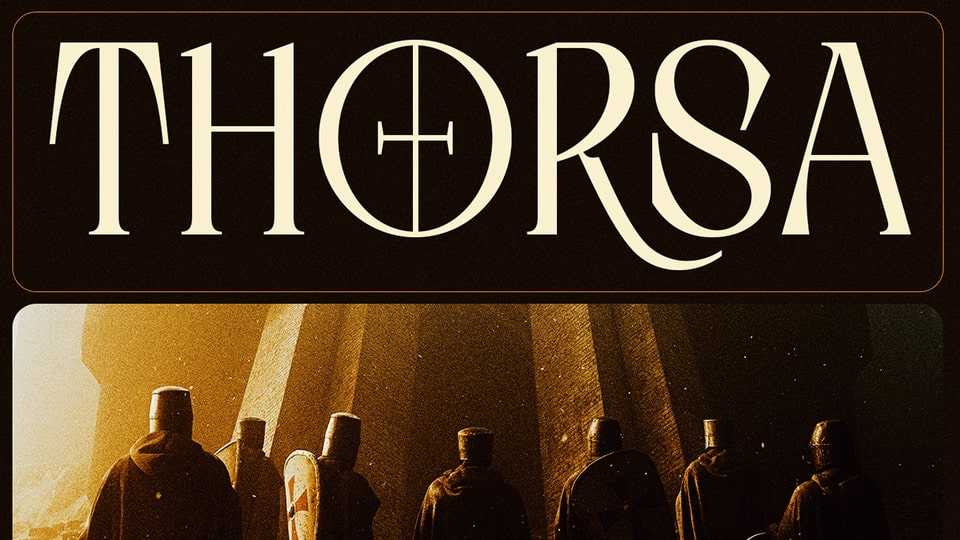
Download Thorsa font, a unique serif typeface that stands out with its sharp and bold design, yet carries a deep meaning. Designed specifically to meet the needs of headlines, news posters, and other significant visual content.
Designer: Rh Type